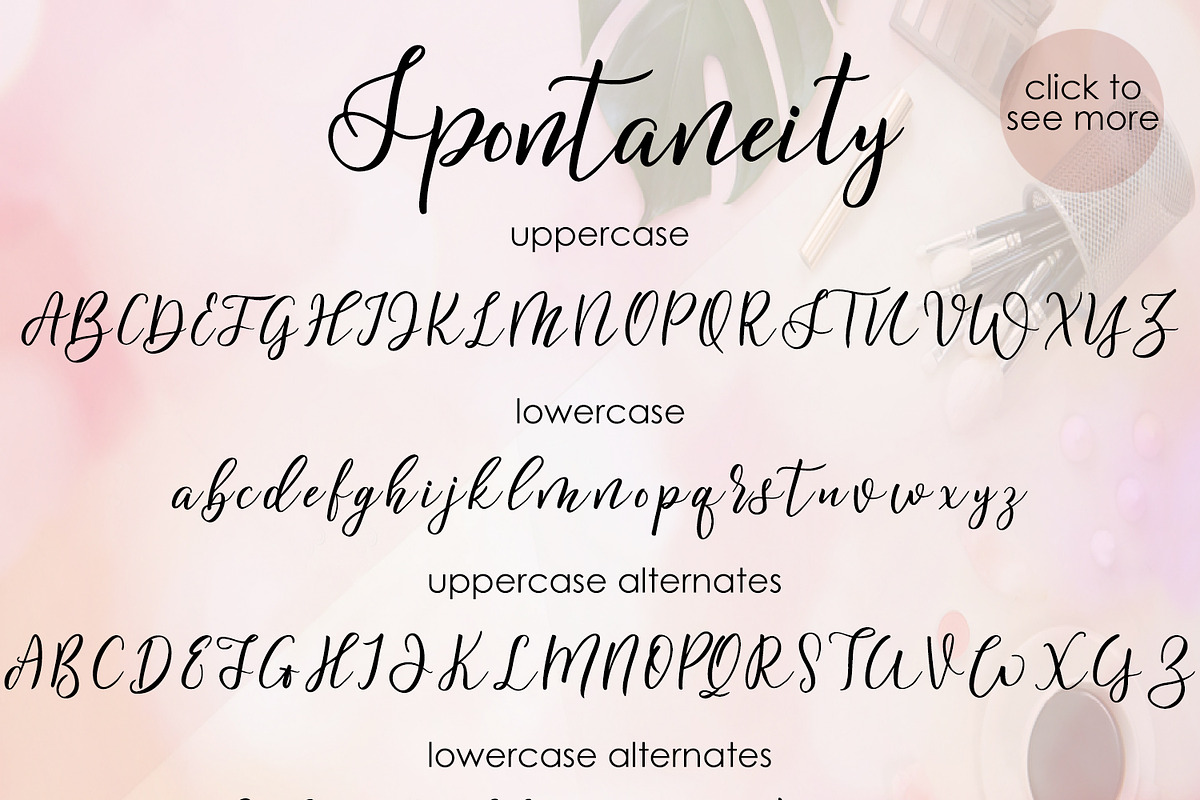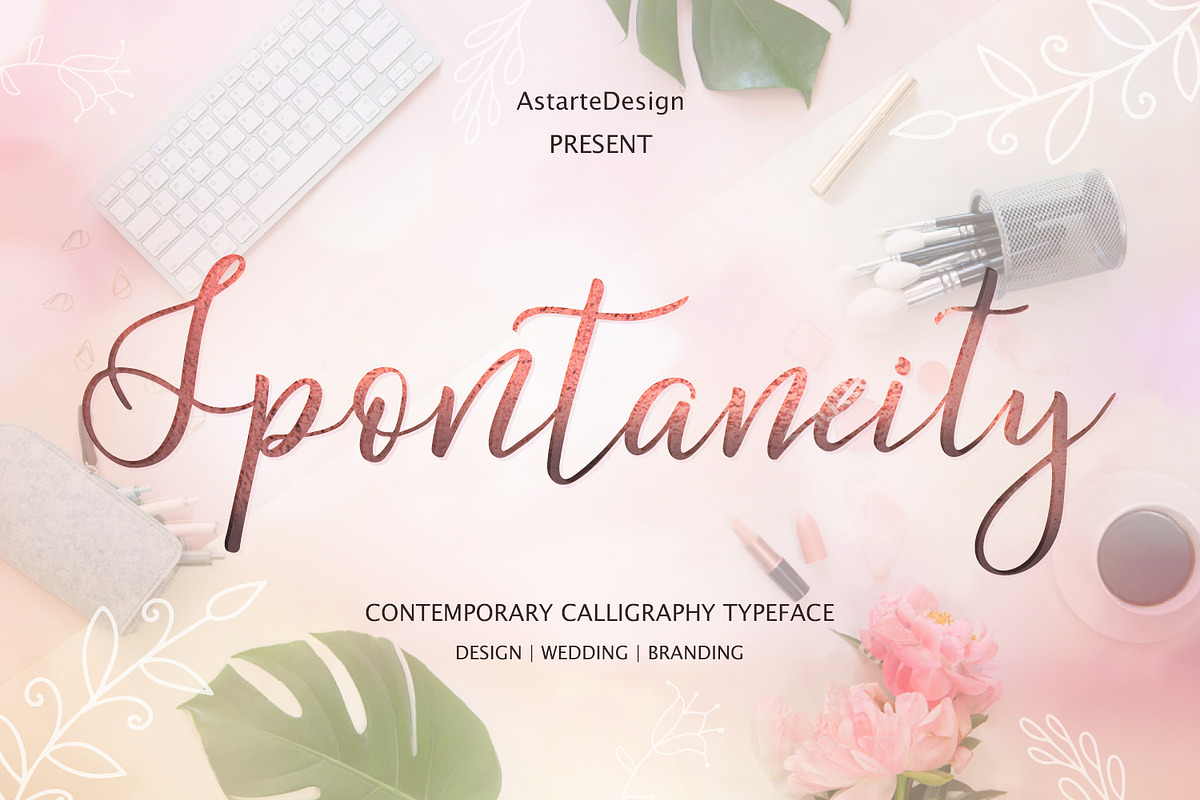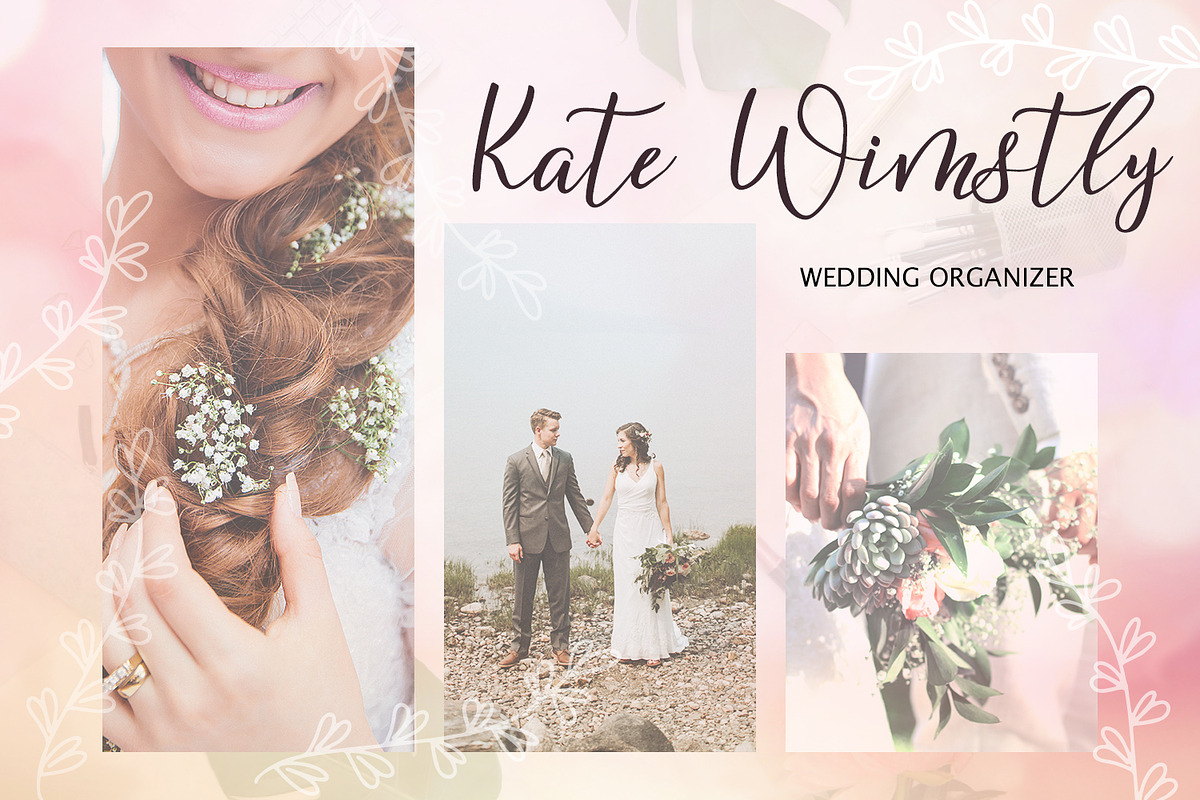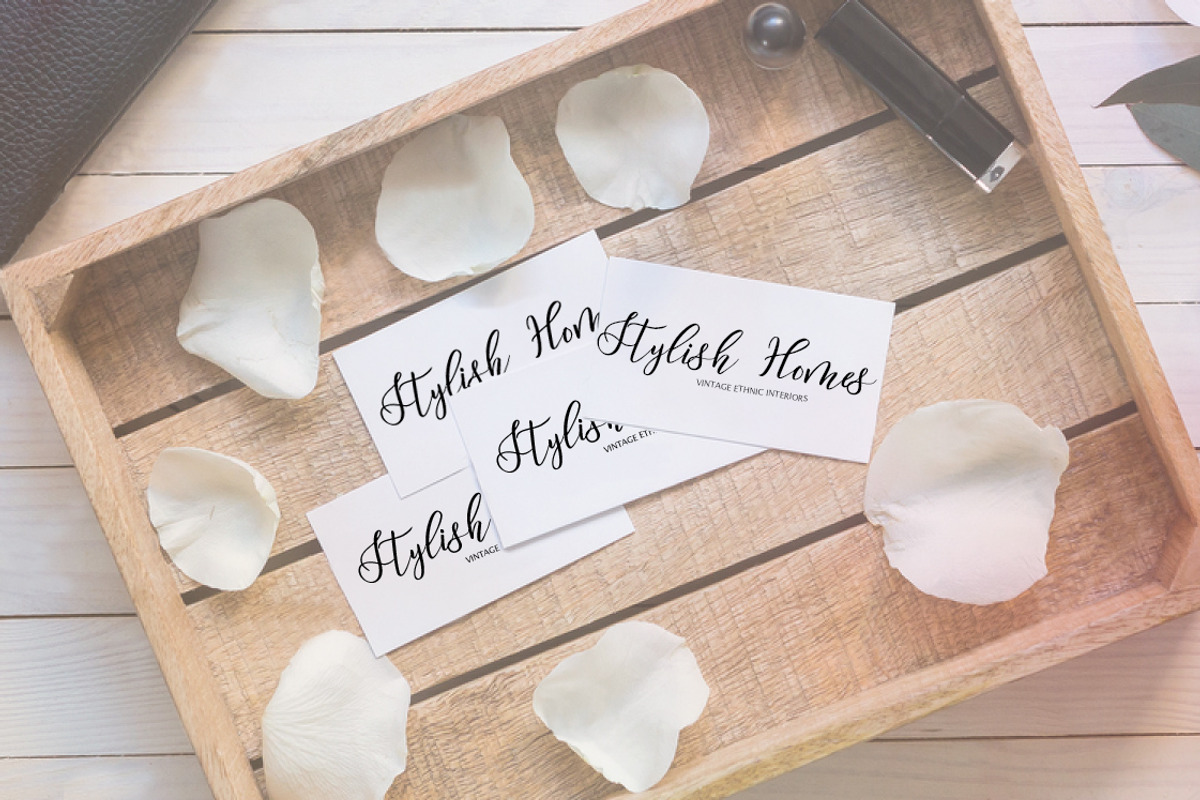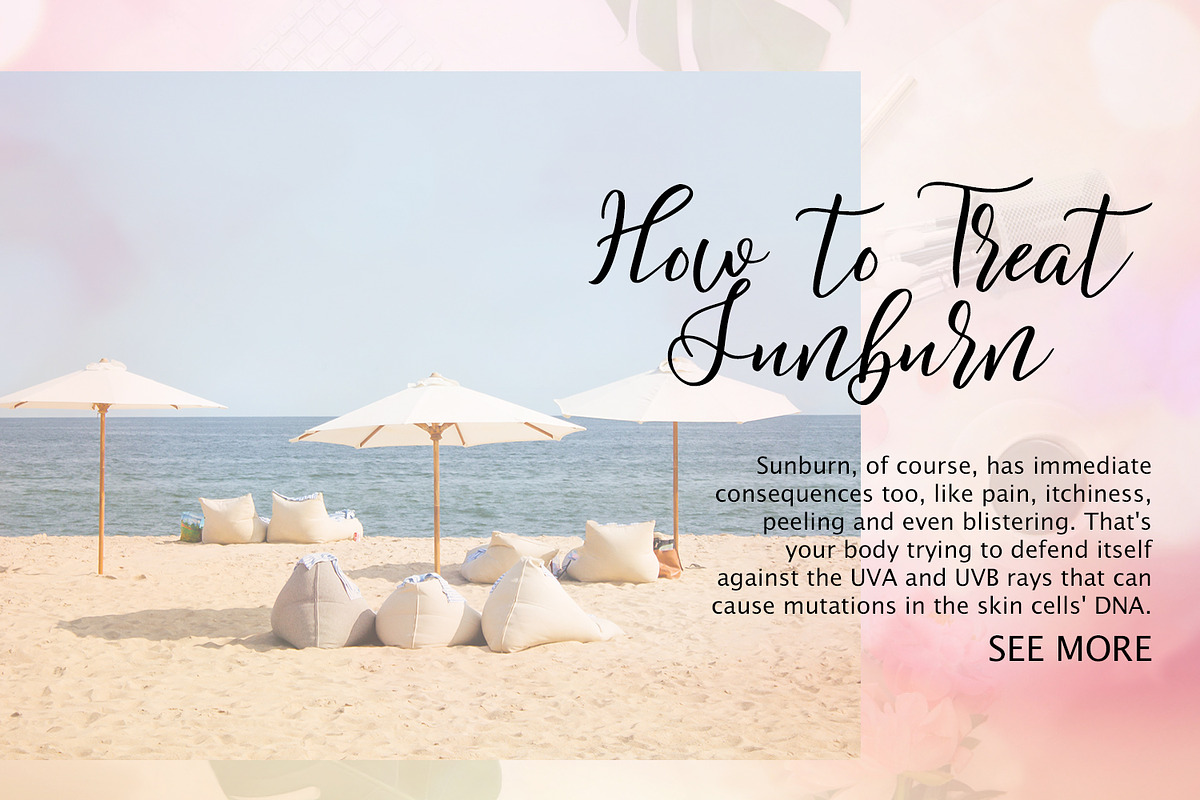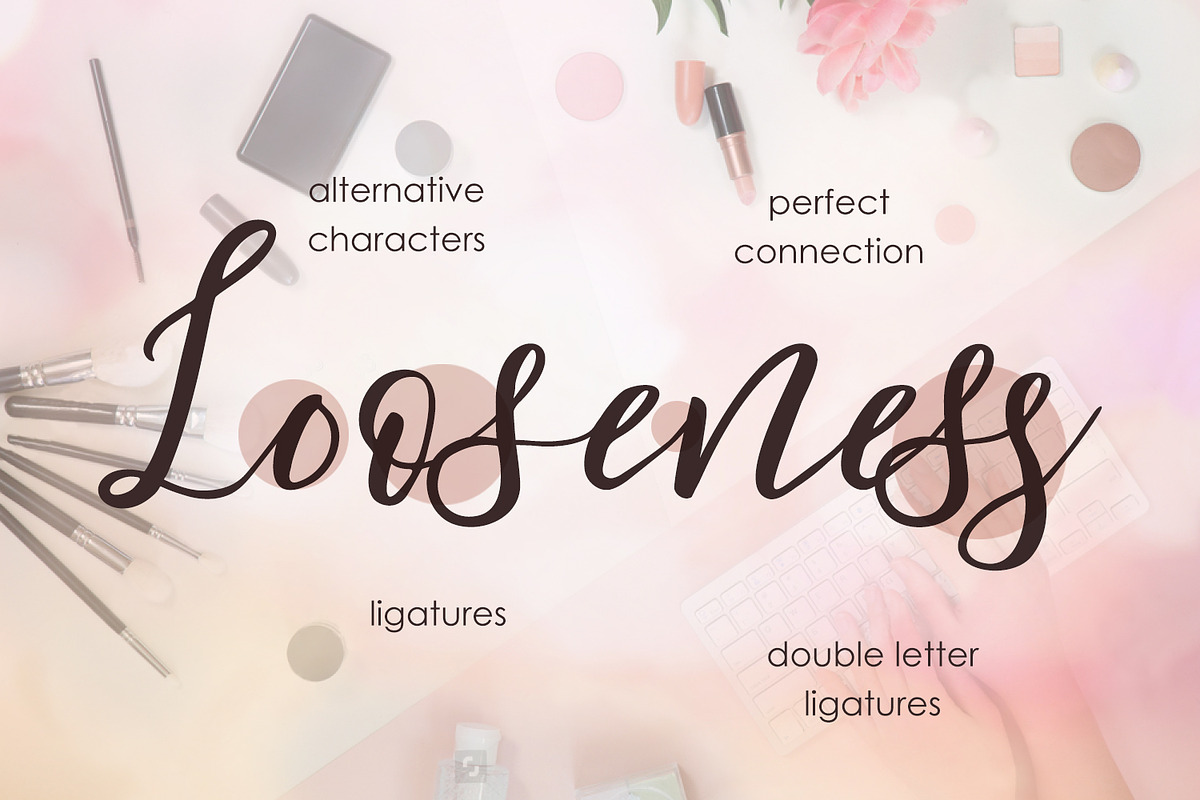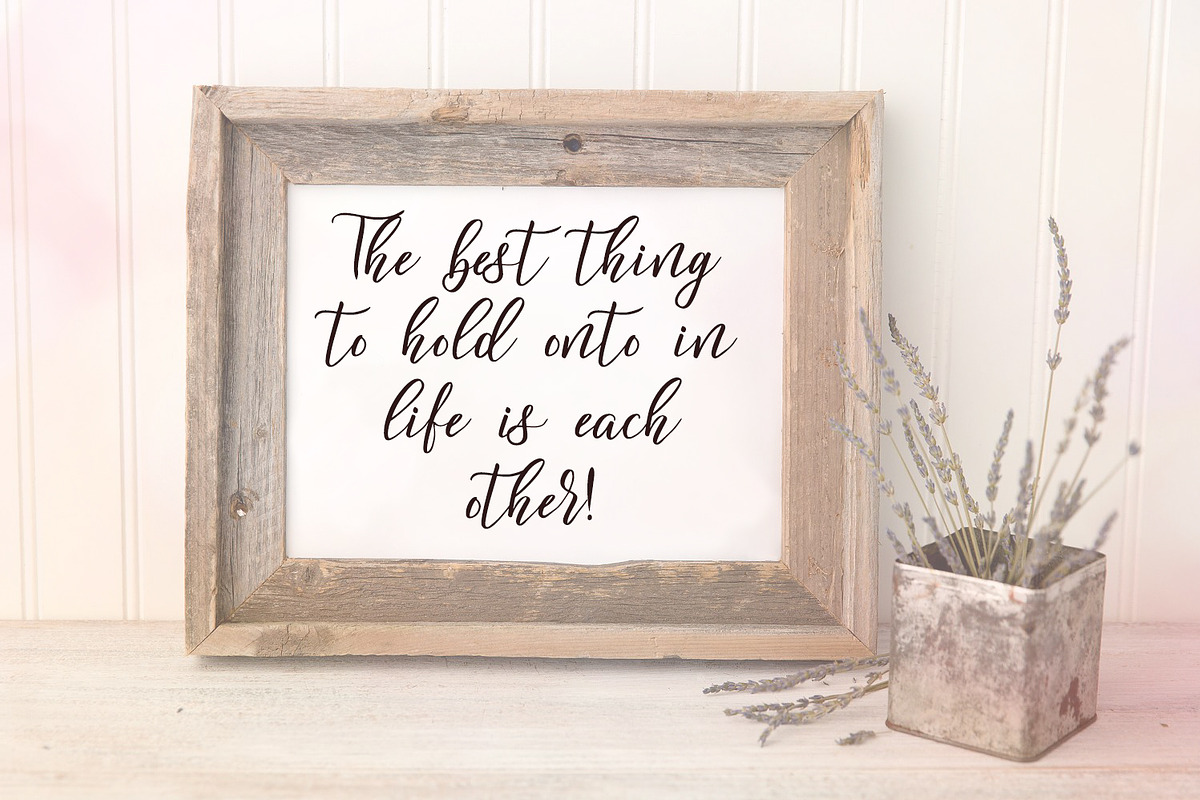
Spontaneity - script font
I'm happy to introduce you a Spontaneity -lovely font&clipart.
It's a graceful, feminine, calligraphic handwritten script font. This font can be used easily and simply because there are a lot of features in it to contain a complete set of letters lower and uppercase letters, assorted punctuation, numbers, and multilingual support.These characters are accessible via software with a glyphs panel.
With modern script style this font will perfect for many different project, example: invitations, greeting cards, posters, name card, quotes, blog header, branding, logo, fashion, apparel, letter, stationery and more!